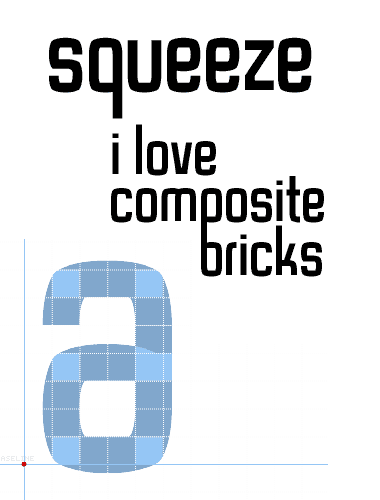
trying to break the grid once more... composite is a great feature... still running into a lot of problems though. in had a great start with this one. i think the squeezed curves create great shapes but i don't know if it's worth creating upper case letters for. this is more like an extended experiment.
unfortunately spacing is aweful once again...
you correct the optical letter that make your font more natural, very harmonious and less GRID FEELING.
GO for the uppercase... please
what kind of brick size do you use? please tell me!
Cool! I love it!